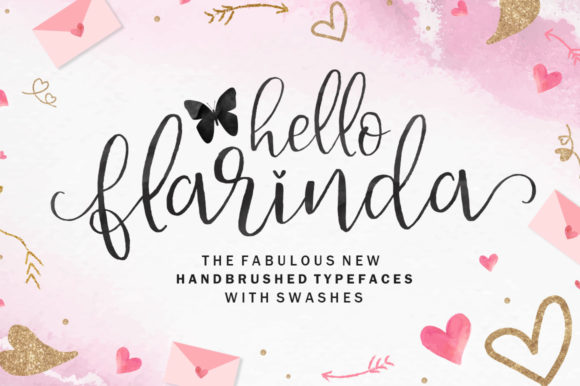
Hello Flarinda Font
About Hello Flarinda Font
Hello Flarinda is a unique and elegant handwritten font. It looks beautiful on a variety of designs requiring a personalized style, such as wedding invitations, thank you cards, weddings, greeting cards, logos and so on.